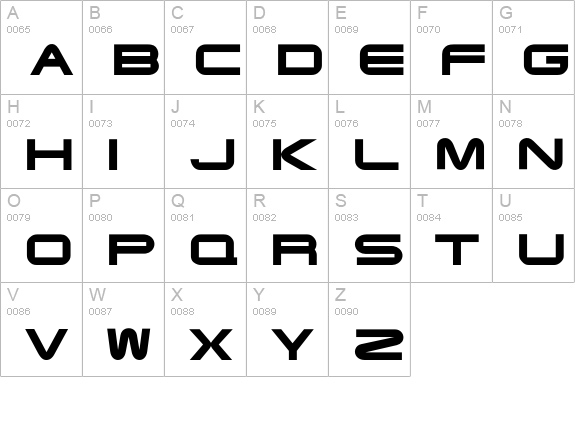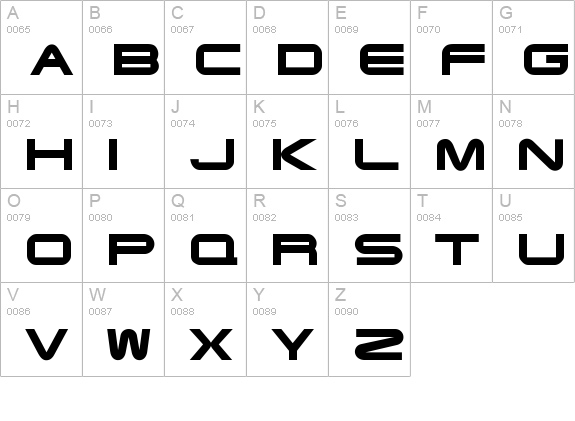
CampOpti-Caps Font Details
CampOpti-Caps font is a charming and versatile typeface that exudes a sense of adventure and playfulness. Its clean lines and bold letterforms make it perfect for a wide range of design projects, from posters to logos to social media graphics. The whimsical yet modern style of CampOpti-Caps adds a touch of fun and personality to any visual composition. One of the best things about CampOpti-Caps font is that it is completely free to download. You can easily access this delightful font at FontsMarket.com, where you can enjoy the convenience of adding it to your font library without any cost. Whether you're a professional designer looking to enhance your creative projects or an enthusiast seeking to experiment with different typefaces, CampOpti-Caps font is a fantastic choice that will surely bring a smile to your face. Download it today and let your imagination run wild with the endless design possibilities that this delightful font has to offer.